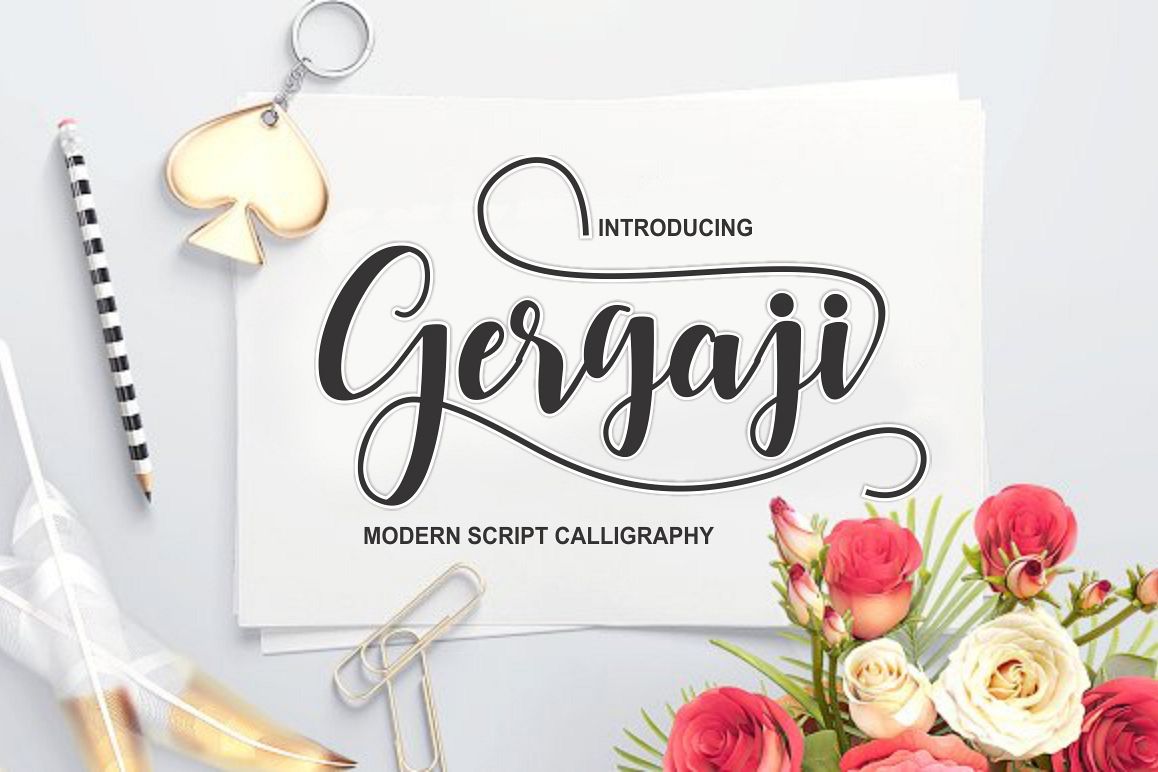
gergaji script font
gergaji is a new calligraphy font and simple style, incorporating
of copper to type letters on the basis of contemporary dancing,
classical and elegant touch. Can be used for various purposes. such as
title, signature, logo, wedding invitations, t-shirts, letterhead,
signage, labels, newsletters, posters, badges etc.